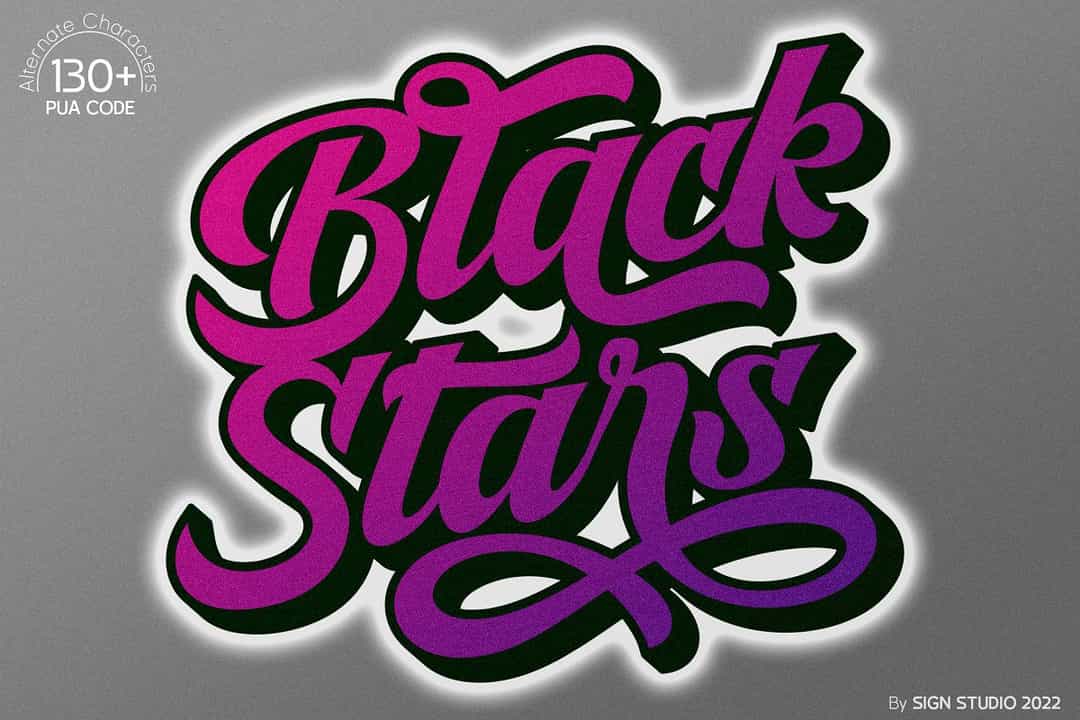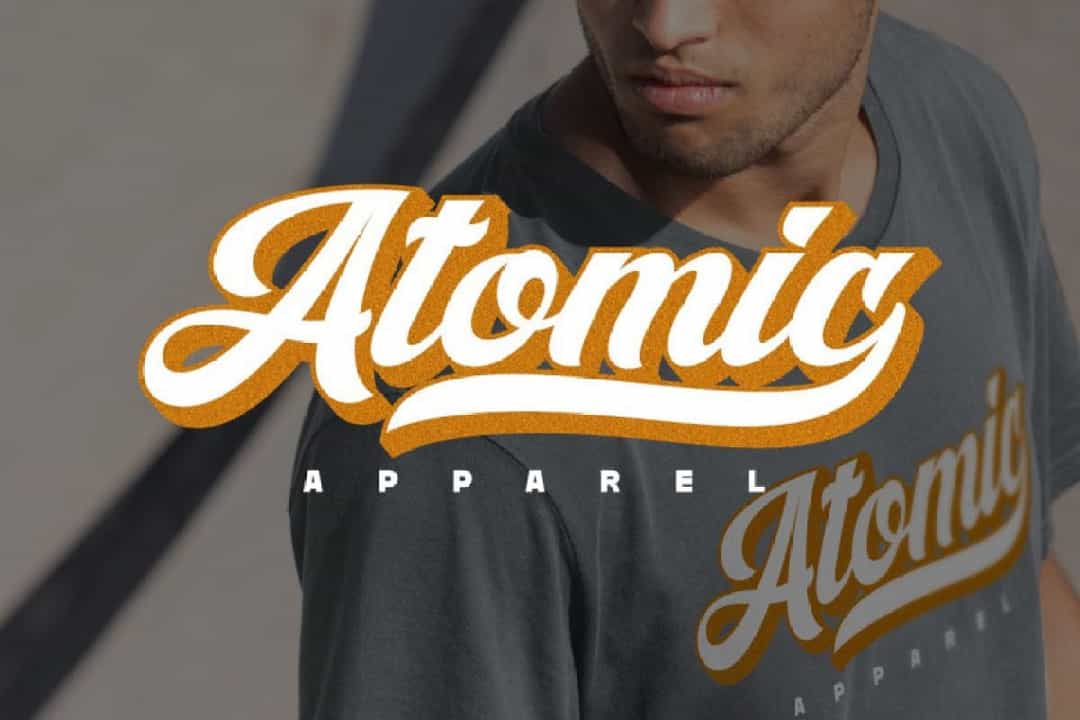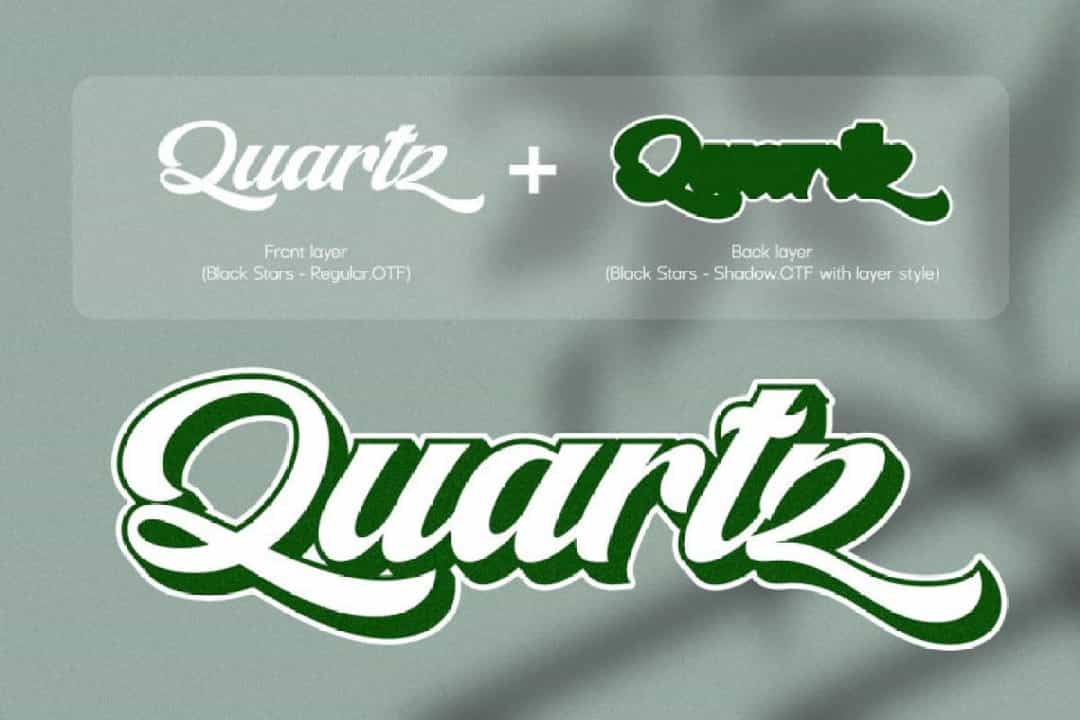
Black Stars is an attractive vintage brush handwritten typeface, with an abundance of alternative characters for easy selection in design work. Being PUA encoded means you have access to all these symbols with just a single font!